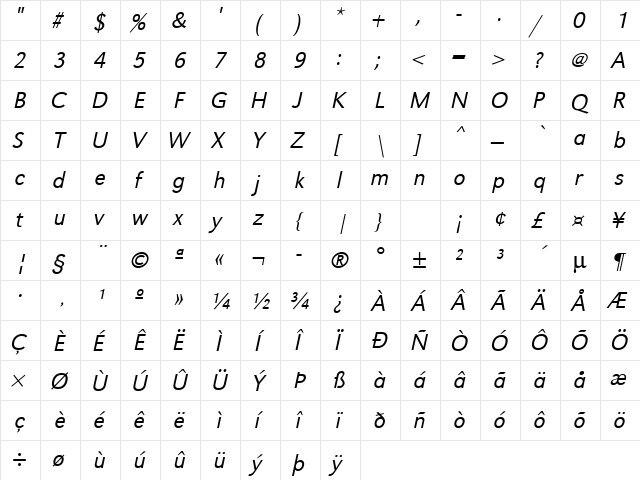
URWGroteskTLig Oblique Font Preview
URWGroteskTLig Oblique
Design Context for URWGroteskTLig Typeface
URWGroteskTLig takes a clean, functional approach — its unadorned letterforms prioritise legibility and work reliably across screen and print environments. The dynamic lean of this cut emphasises speed and emphasis in any layout.
Font Pairing: Works well alongside a characterful serif or display font that can carry the expressive load while URWGroteskTLig handles the functional copy.
Pro Tip: Pair URWGroteskTLig with a display or serif font for headlines — its neutral character makes it an excellent supporting player in complex typographic systems.